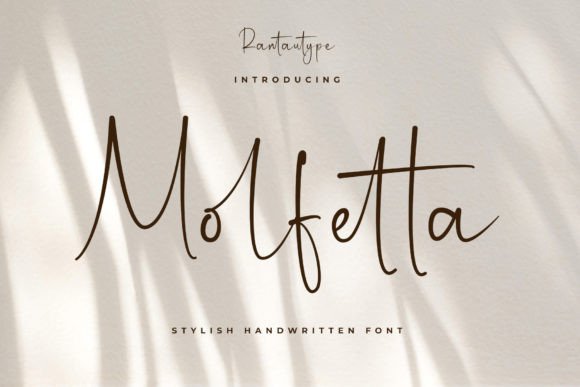
In a world awash with digital monotony, let Molfetta be your beacon of creative expression. Step into a realm where your designs dance with elegance and flair, leaving an indelible mark on the hearts of all who behold them.
Molfetta, the exquisite script font family, beckons you to unleash your inner artist and craft designs that sizzle with personality. This breathtaking collection of fonts is a masterclass in versatility, seamlessly adapting to a myriad of creative endeavors. Whether you're a seasoned designer or just starting your journey, Molfetta empowers you to create with confidence.
With its graceful curves and captivating swashes, Molfetta effortlessly adds a touch of allure to any project. Imagine your words taking flight, adorned with the charm and sophistication that only Molfetta can provide. Create captivating watermarks that transform your photographs into works of art, leaving viewers mesmerized by your creative genius.
Let Molfetta's enchanting script ignite your passion for design. Whether you're crafting logos that demand attention, designing album covers that tell a story, or simply adding a touch of elegance to your business cards, Molfetta is your perfect partner. Its versatility knows no bounds, allowing you to experiment and explore until your heart's content.
Dive into the depths of Molfetta's character set and discover a world of possibilities. Express your individuality through quotes that resonate with your soul, rendered in Molfetta's captivating script. Transform ordinary text into extraordinary statements, leaving a lasting impression on all who read your words.
Molfetta is more than just a font; it's an invitation to unleash your creativity and redefine the boundaries of design. Embrace its allure, let your imagination soar, and watch as your designs come alive with unmatched beauty and grace.